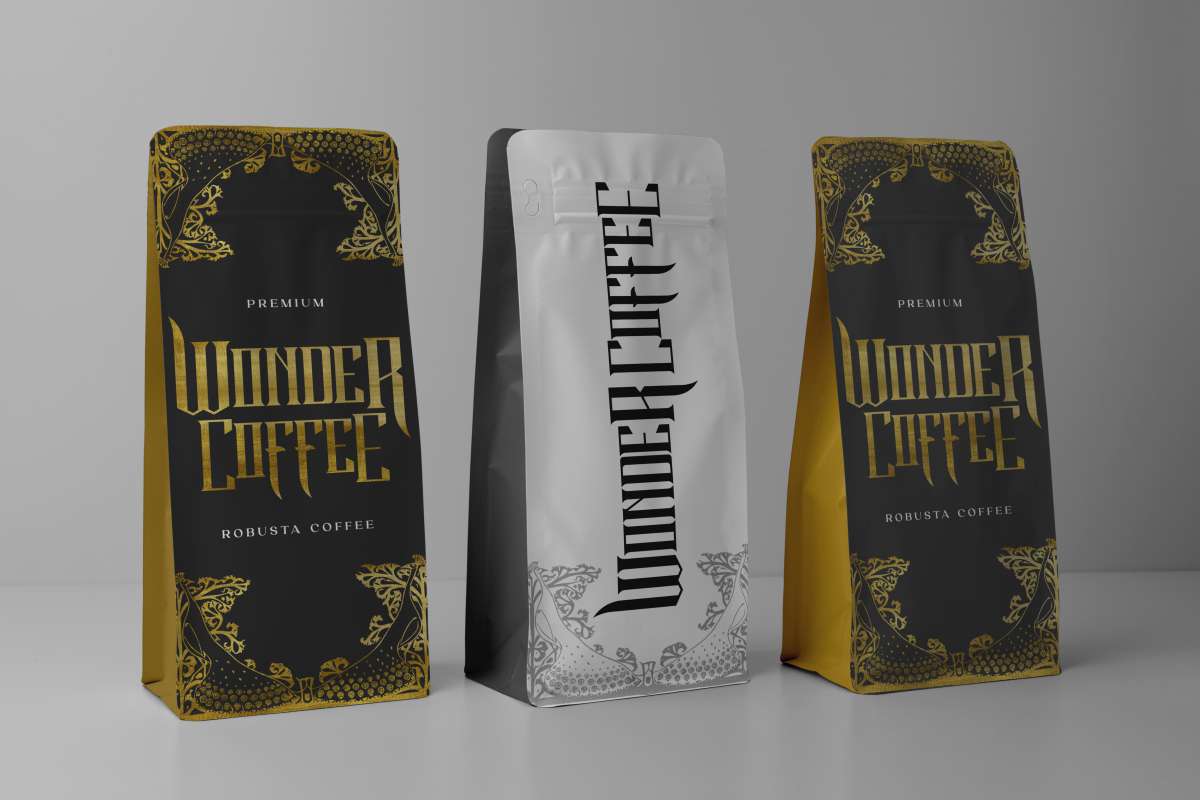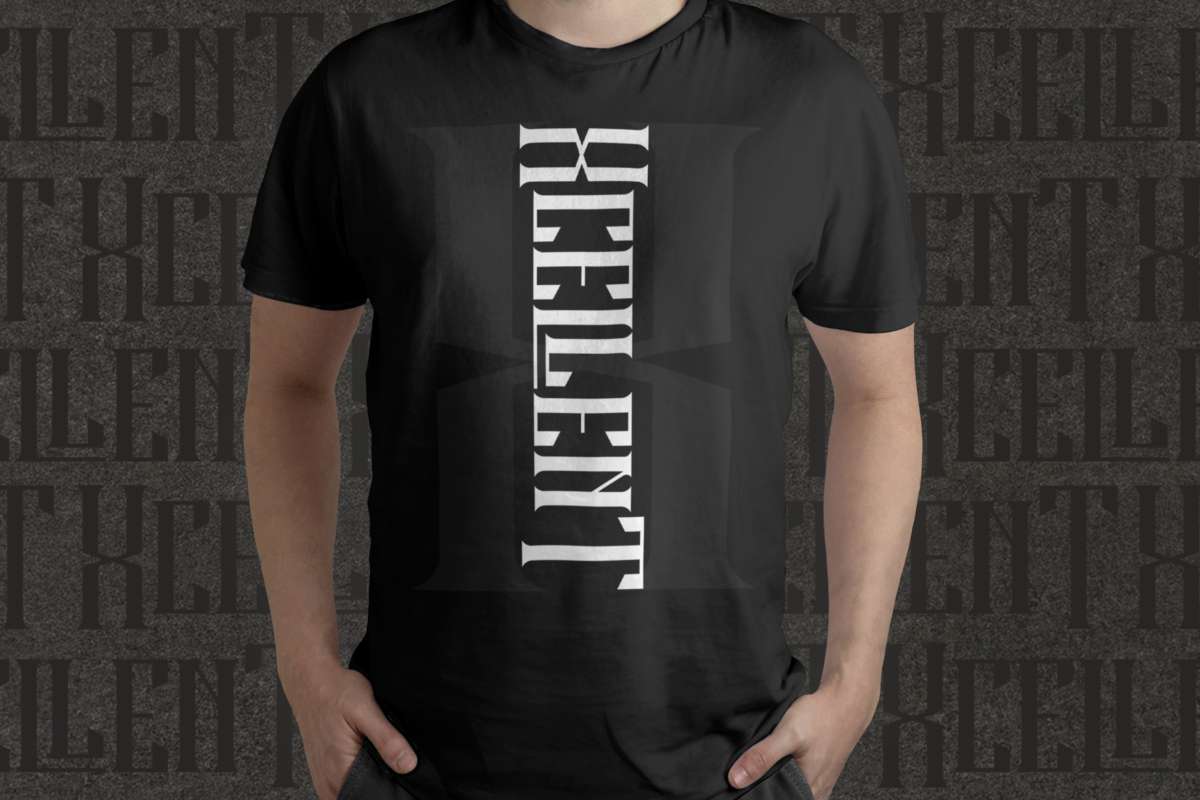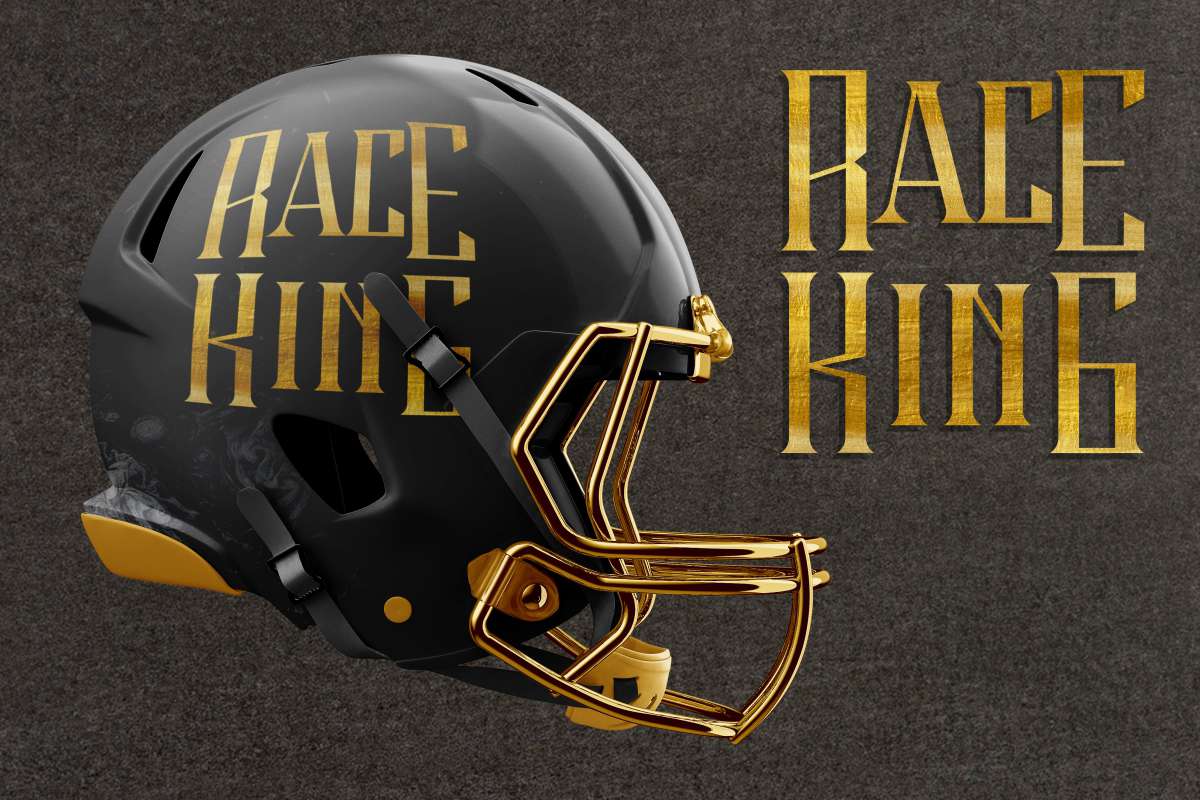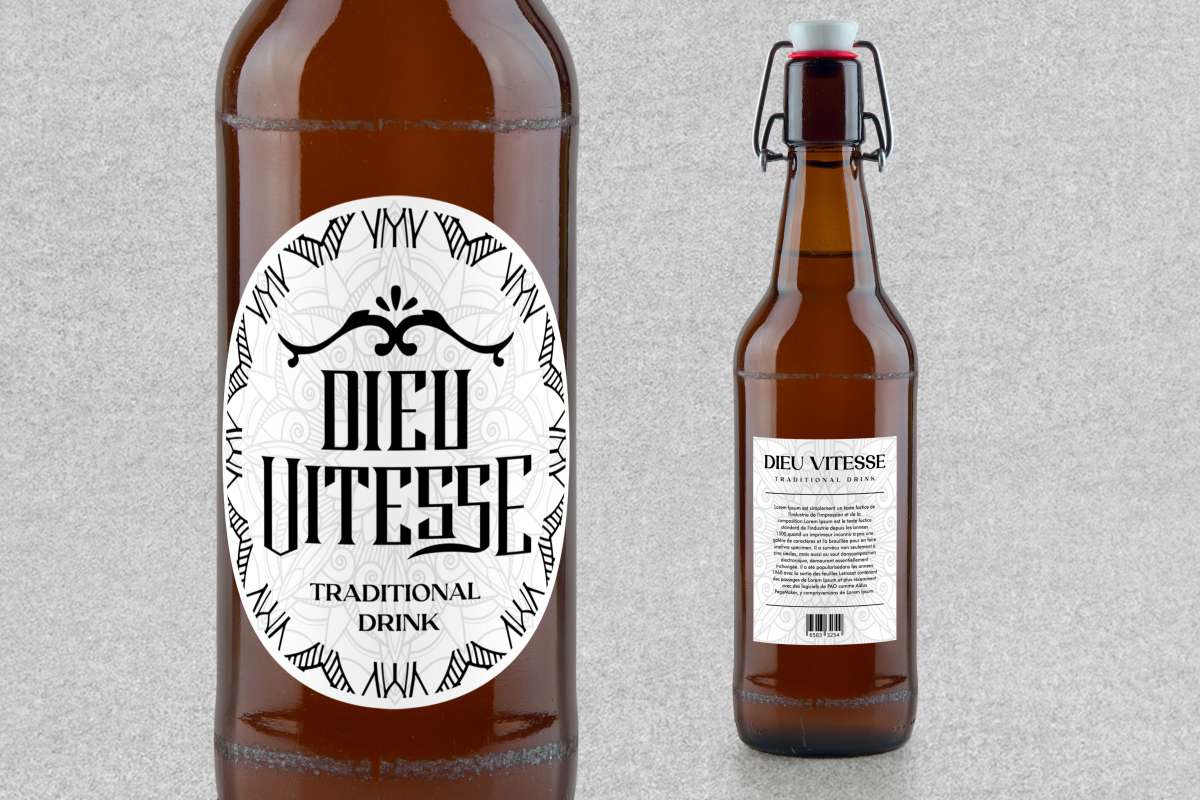
Hard Strive Font
Hard Strive Font is a display font with gothic style. This font has classic and unique style that looks awesome in just about every context. Use it for branding logo, clothing, packaging products, poster and more!
Hard Strive Font includes full set of Uppercase and Lowercase Basic Characters, Numerals and Punctuation. Also ligatures and alternatives that add to the perfect feel of this font. This font would be great to use for any project that requires a bold and awesome look!